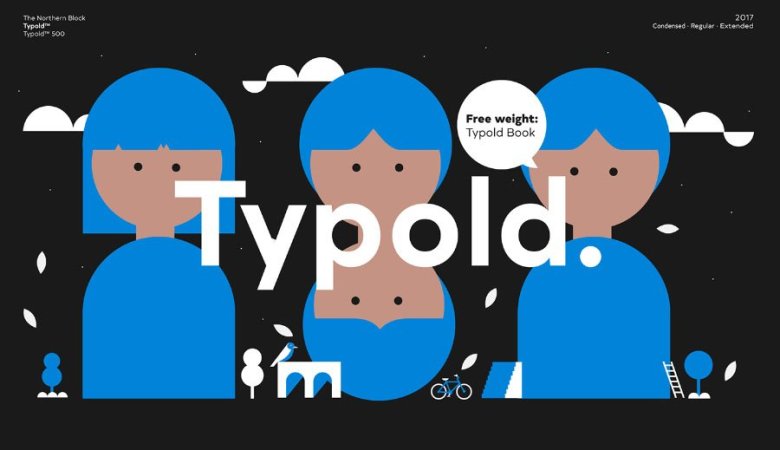
Typold Type Family
Start a new week with a font family. Introducing Typold Type Family. This is a geometric typeface, it will fit many of your design projects. Typold designed and shared by The Northern Block. Typold originated out of the desire to improve, geometric forms and push beyond previous achievements through collaborative working methods and knowledge sharing. The result is a finely balanced modern sans serif constructed from mathematical inputs, typographers needs, and the natural hand and eye of an artisan…